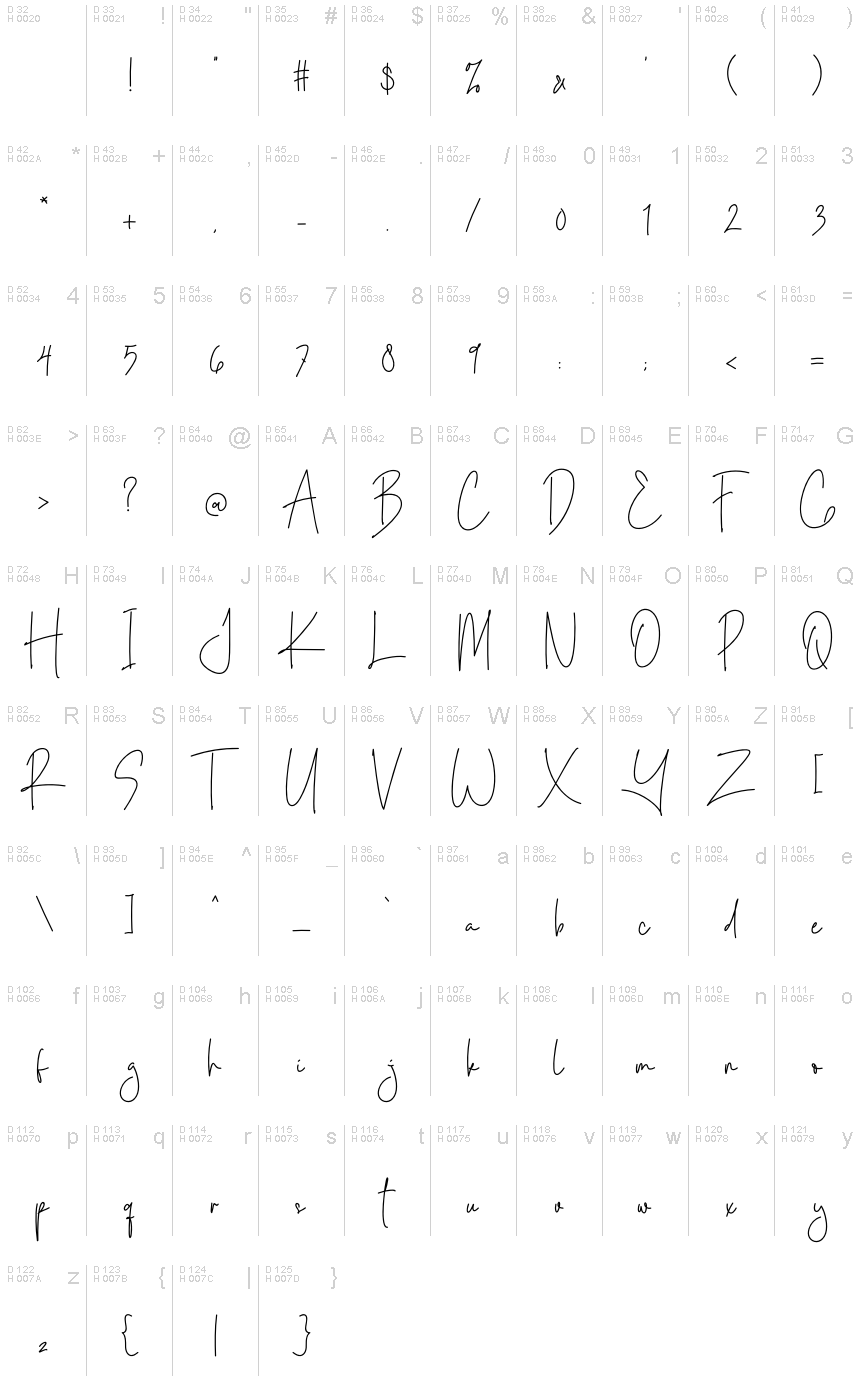
Jhonathan
Jhonathan font, designed by Behind the Ink, is a thin-lettered handwritten font masterfully created to become a true favourite. Signature-like, elegant and fluid; this light-style font maintains its classy calligraphic influences while feeling contemporary and fresh. It is genuine enough to look informal and personalized whenever needed.
As an authentic-looking handwritten font, Jhonathan can be used with logos, branding elements such as labels or packaging. You can employ it for posters, invitations (such as weddings), illustrations… but also for book covers or magazine designs! Other major applications are social media posts/stories on Facebook and Instagram specifically!